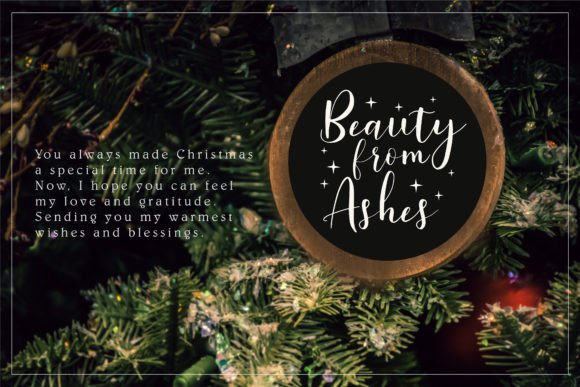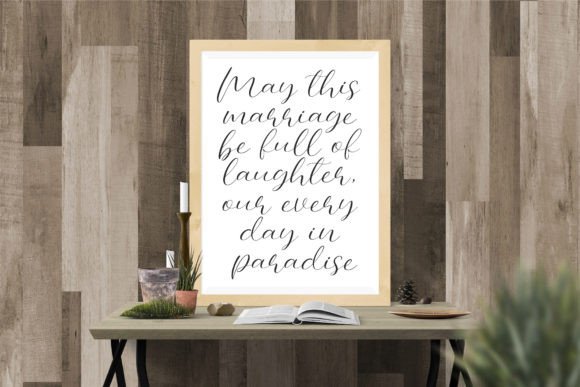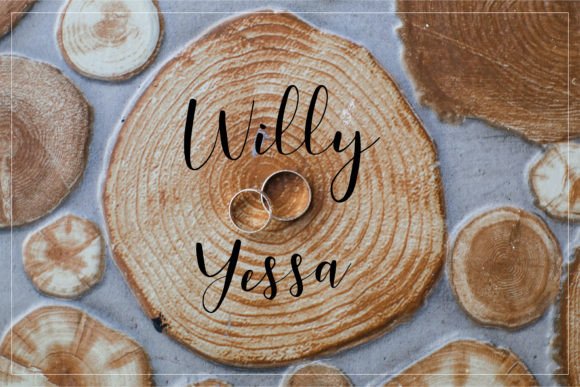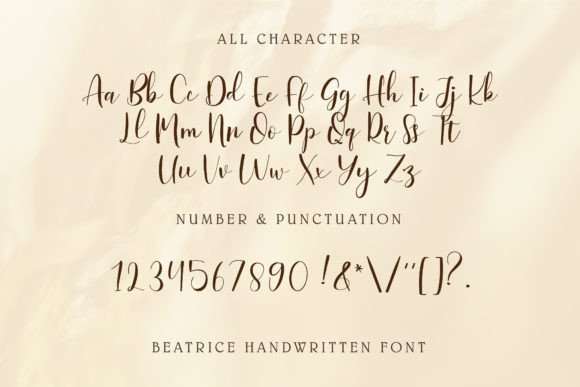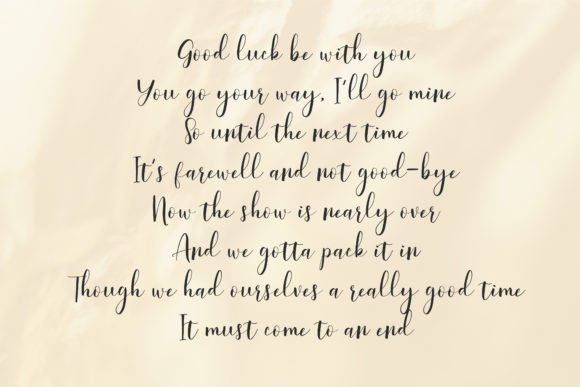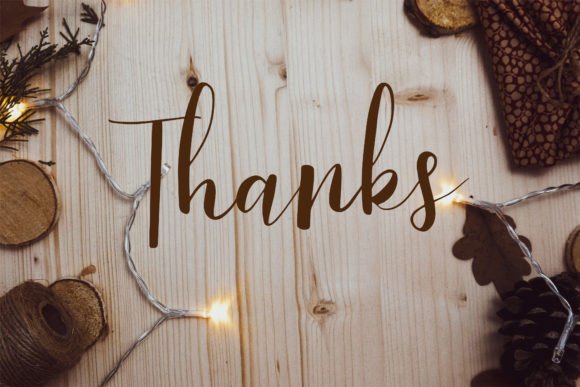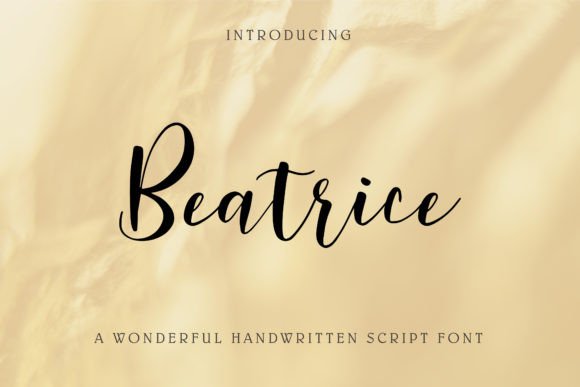
Introducing Beatrice Font: The Modern Script Handwritten Font for Stunning Designs
In the world of typography, a good font can make all the difference in creating visually appealing designs. If you’re a designer, crafter, or simply someone who loves to dabble in DIY projects, you’re in luck! We’re excited to introduce Beatrice Font, a modern script handwritten font that’s perfect for a wide range of design projects. In this article, we’ll dive into the features and benefits of Beatrice Font, and explore how you can use it to take your designs to the next level.
What is Beatrice Font?
Beatrice Font is a beautiful, modern script handwritten font that’s designed to add a touch of elegance and sophistication to your designs. With its flowing lines and cursive strokes, Beatrice Font is perfect for creating stunning visual content that grabs attention. Whether you’re working on a logo, branding project, wedding invitation, or social media graphic, Beatrice Font is the perfect choice.
Key Features of Beatrice Font
So, what makes Beatrice Font so special? Here are some of its key features:
- Modern script style: Beatrice Font boasts a modern script style that’s both elegant and trendy.
- Handwritten feel: The font has a warm, handwritten feel that’s perfect for creating personal and inviting designs.
- High-quality design: Beatrice Font is designed with high-quality lines and strokes, ensuring that your designs look crisp and clear.
- Versatile: Beatrice Font can be used for a wide range of design projects, from logos and branding to wedding invitations and social media graphics.
Use Cases for Beatrice Font
Beatrice Font is an incredibly versatile font that can be used for a wide range of design projects. Here are some ideas to get you started:
- Logos and branding: Use Beatrice Font to create a stunning logo or brand identity that’s both elegant and memorable.
- Wedding invitations: Add a touch of romance and sophistication to your wedding invitations with Beatrice Font.
- Business cards: Stand out from the crowd with beautifully designed business cards featuring Beatrice Font.
- Greeting cards: Create personalized greeting cards for special occasions, such as birthdays, holidays, or anniversaries.
- Signboards and posters: Use Beatrice Font to create eye-catching signboards and posters that grab attention.
- Magazines and publications: Add a touch of elegance to your magazine or publication with Beatrice Font.
- Social media graphics: Create stunning social media graphics that showcase your brand’s personality with Beatrice Font.
- Planner prints: Use Beatrice Font to create beautiful planner prints that are both functional and visually appealing.
- Crafting projects: Add a personal touch to your crafting projects, such as handmade cards or scrapbooking, with Beatrice Font.
- Websites: Use Beatrice Font to create a stunning website that’s both elegant and user-friendly.
Why Choose Beatrice Font?
With so many fonts available, why choose Beatrice Font? Here are just a few reasons:
- Unique and stylish: Beatrice Font is a unique and stylish font that’s sure to make your designs stand out.
- Easy to read: Despite its elegant style, Beatrice Font is easy to read, making it perfect for body text and captions.
- High-quality design: Beatrice Font is designed with high-quality lines and strokes, ensuring that your designs look crisp and clear.
- Versatile: Beatrice Font can be used for a wide range of design projects, making it a great addition to your font library.
| Author | Lettersmith Mfg |
In conclusion, Beatrice Font is a stunning modern script handwritten font that’s perfect for designers, crafters, and anyone looking to create visually appealing designs. With its elegant style, versatility, and high-quality design, Beatrice Font is sure to become a favorite in your font library. So why wait? Download Beatrice Font today and start creating stunning designs that showcase your creativity and style!